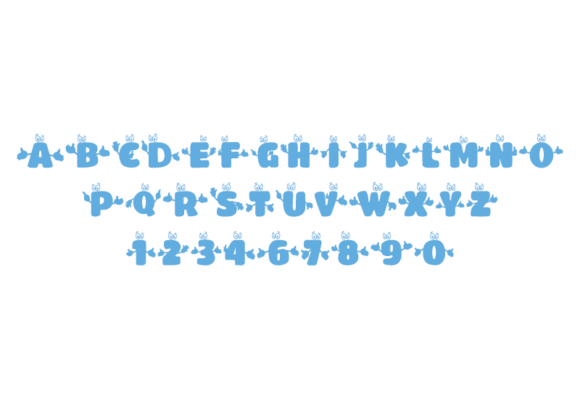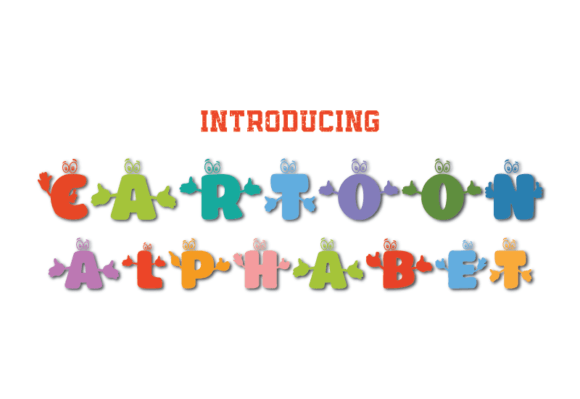
Introduction to Cartoon Alphabet Font
Introducing the Cartoon Alphabet.
This font magically brings the playful world of cartoons to life in every letter Each character dances with imagination, featuring vibrant colors, exaggerated curves, and endearing expressions.
Key Features of Cartoon Alphabet Font
Why Choose Cartoon Alphabet Font?